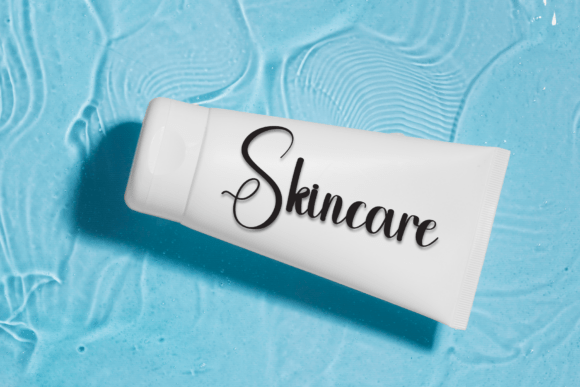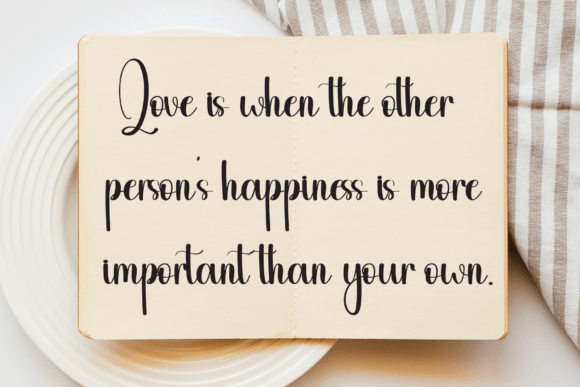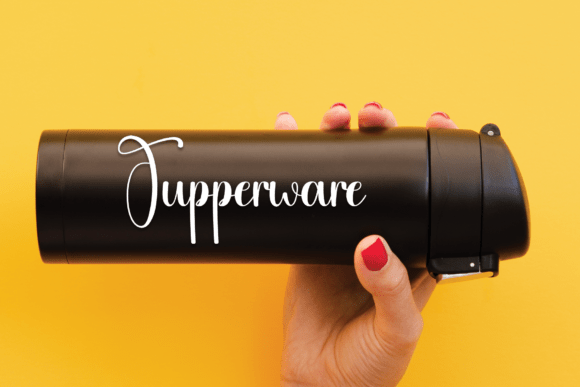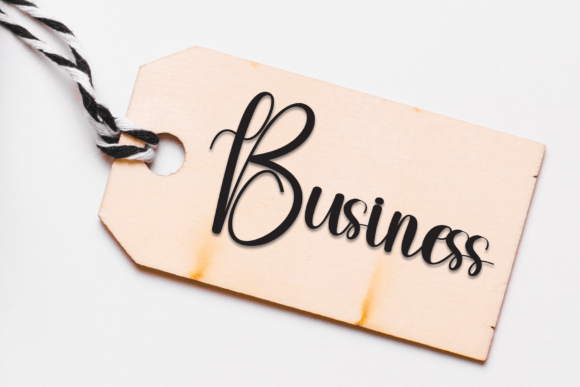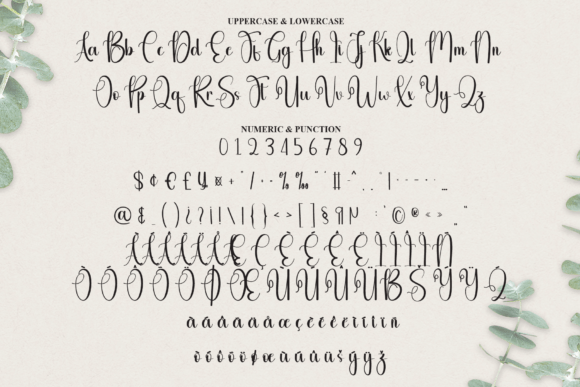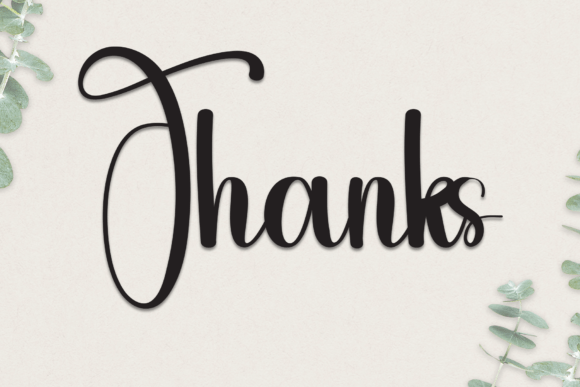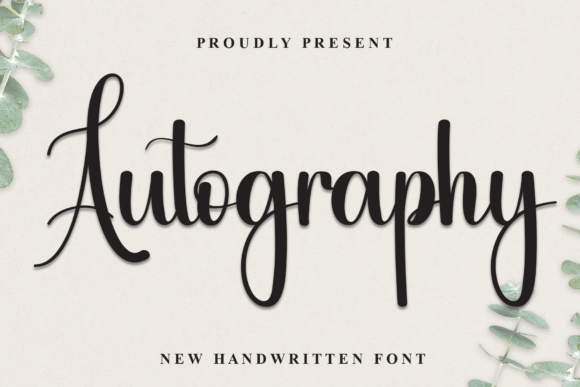
Discover the Whimsical Charm of Sweet Symphony: A Handwritten Display Font
Have you ever been in the middle of a design project, and suddenly, you’re stuck on finding the perfect font? I recall a recent experience where I was working on a whimsical wedding invitation, and my usual go-to fonts just weren’t cutting it. That’s when I stumbled upon Sweet Symphony, an adorable and charismatic handwritten display font that has since become my new obsession.
The Birth of Sweet Symphony
Sweet Symphony is designed to breathe life into your creative projects with its distinctive charm and playful aura. It’s the perfect blend of simplicity and fun, tailor-made for delightful cards, whimsical wedding invitations, or a myriad of designs that call for a light-hearted and engaging touch.
My Honest Review of Sweet Symphony
So, what do I love about Sweet Symphony? Here are a few highlights:
• ✨ Unique and playful character set that’s perfect for creative projects
• ✅ Easy to read and understand, even at smaller font sizes
• 💫 Support for OpenType features, glyphs, and stylistic alternates
• 🎉 Quirky cuteness that adds an element of joy to any design
Now, I’m not saying Sweet Symphony is perfect. There are a few small quirks to be aware of:
• 🤔 Some letters may appear a bit irregular or imperfect, but that’s part of its charm
• ⚠️ Limited support for non-English languages
The Designer Inspiration Behind Sweet Symphony
Imagine a sunny afternoon, sitting in a quaint café, surrounded by vintage typewriters and scraps of paper. This is where the designer of Sweet Symphony found inspiration – in the imperfect, hand-crafted beauty of handwritten letters. With a passion for creating unique and engaging fonts, the designer poured their heart and soul into crafting Sweet Symphony.
Font Name Autography Font
Author Strongkeng Old
Q: What type of projects is Sweet Symphony best suited for?
A: Sweet Symphony is perfect for whimsical wedding invitations, delightful cards, and creative projects that require a light-hearted touch.
Q: Does Sweet Symphony support OpenType features?
A: Yes, Sweet Symphony supports OpenType features, glyphs, and stylistic alternates, allowing you to add visual interest to your designs.